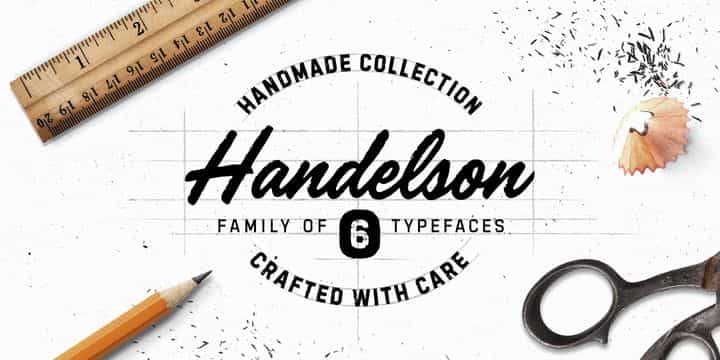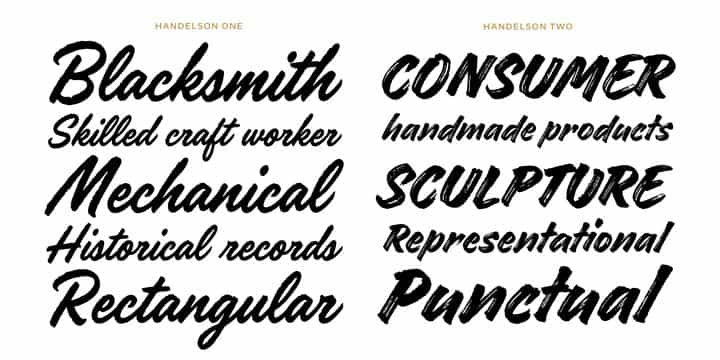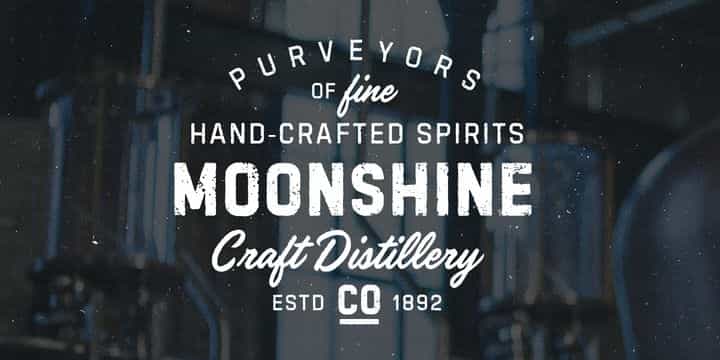
Handelson is the name of a handcrafted typeface family with an organic and authentic vibe, which consists of three scripts (one unconnected) and two geometric sans serifs all capitalised (Block characters).